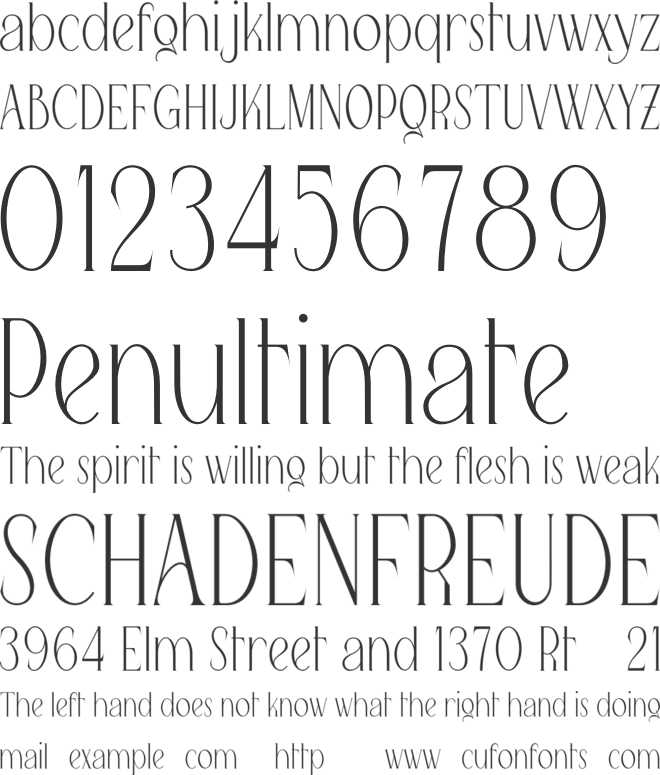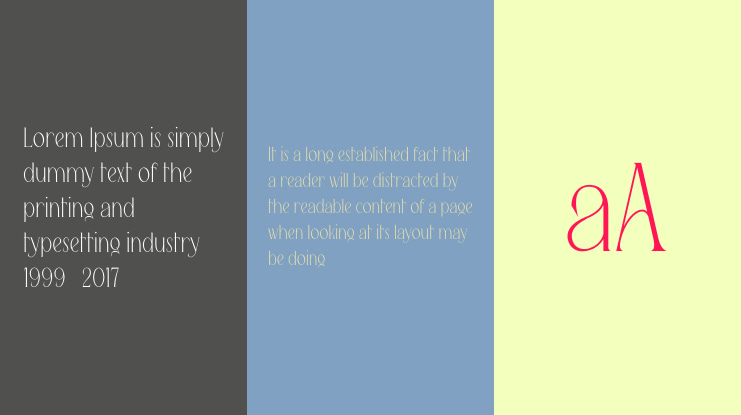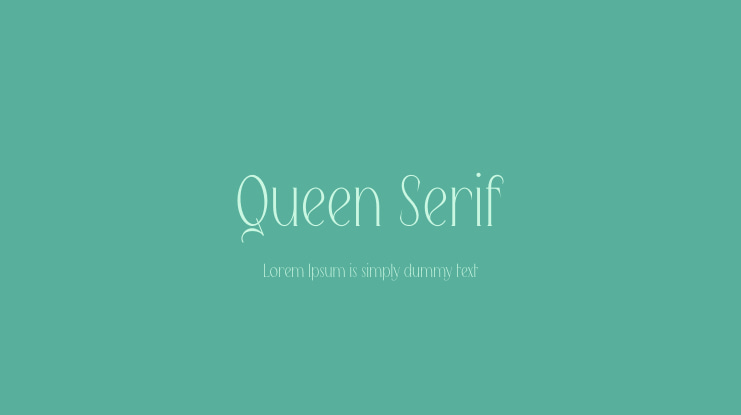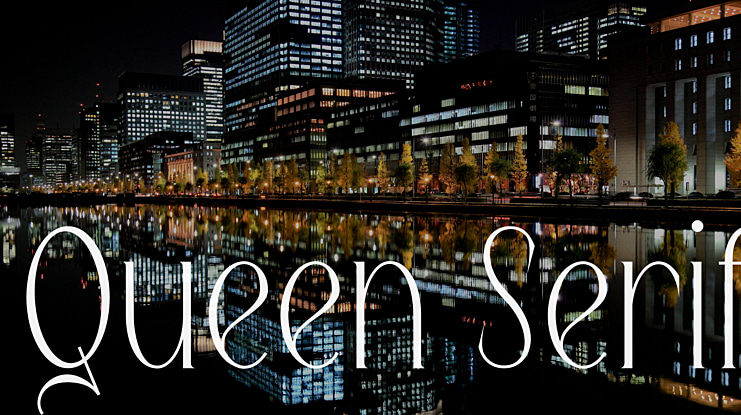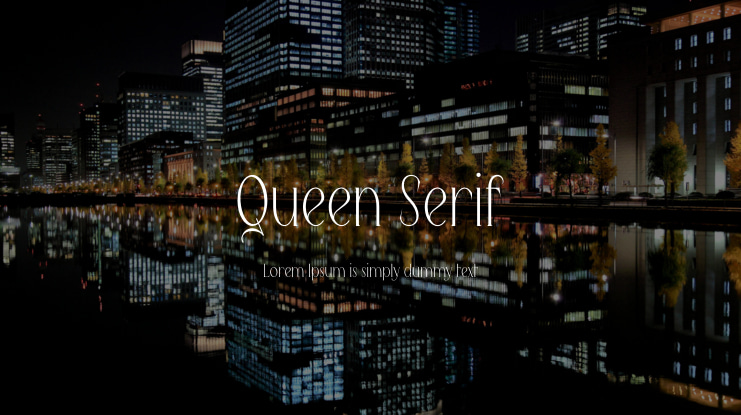
Queen Serif Font
The Queen Serif family is a stylish serif font designed for your next project. The various weights allow for a variety of typographic color options for each style, making it easy to find the perfect fit for your needs. Its clean and modern design provides just enough vintage flair to give your projects an elegant look.
- 5 Weights
- 2 Styles (Regular and Italic)
- Basic Latin A-Z and a-z
- Numerals & Punctuation
- Stylistic Ligatures and Alternate glyps
- Multilingual Support for ä ö ü Ä Ö Ü …